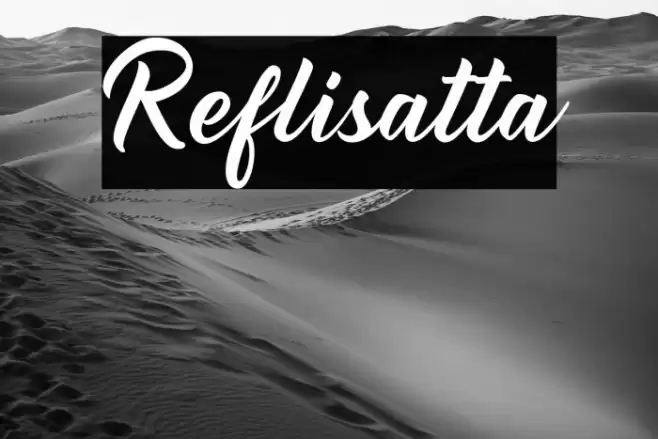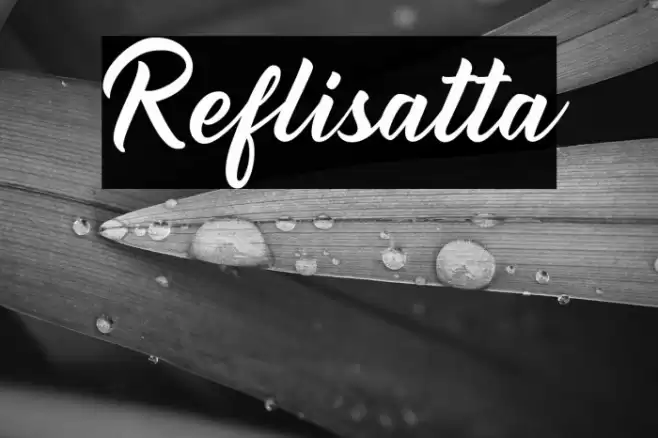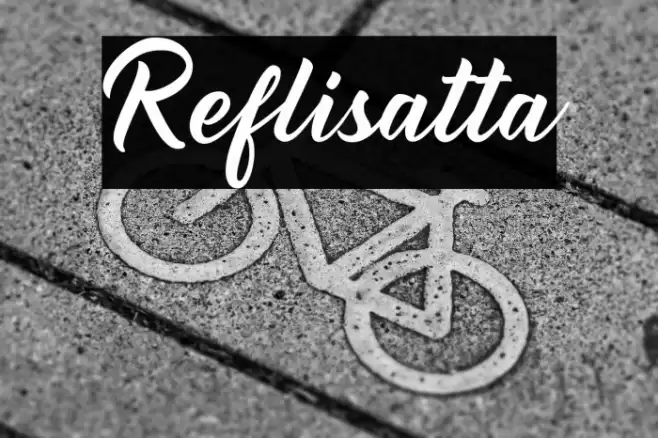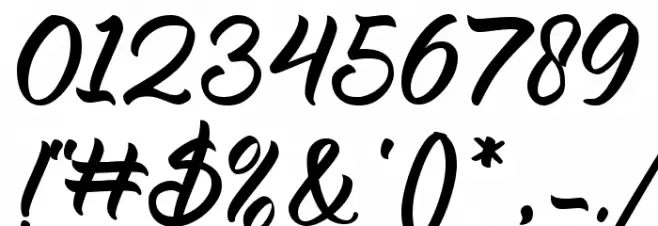
Reflisatta Font
Reflisatta Description
This font features a bold and flowing script style, characterized by its elegant and cursive letterforms. The uppercase letters exhibit a graceful yet assertive presence, with smooth curves and a consistent stroke width that adds to its readability. The lowercase letters maintain a harmonious flow, complementing the uppercase with their rounded and connected forms. Numbers and special characters are designed with the same fluidity, ensuring a cohesive look across all text. The overall design exudes a sense of sophistication and dynamism, making it suitable for a variety of creative applications.
A bold, flowing script font with elegant and cursive letterforms from Uncategorized fonts.
- Proposed Projects: Ideal for wedding invitations, branding, logo design, and elegant packaging.
- Overall Style: Elegant
- Use Case: Logos, Invitations, Branding